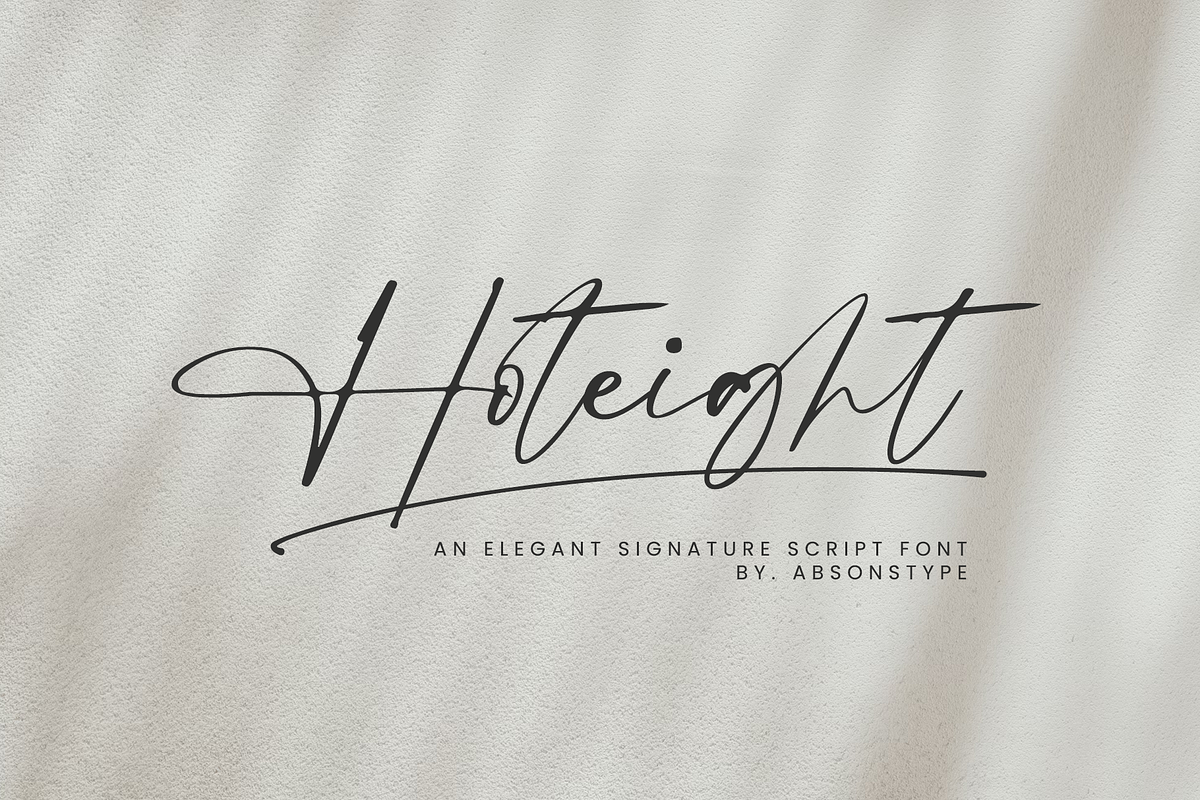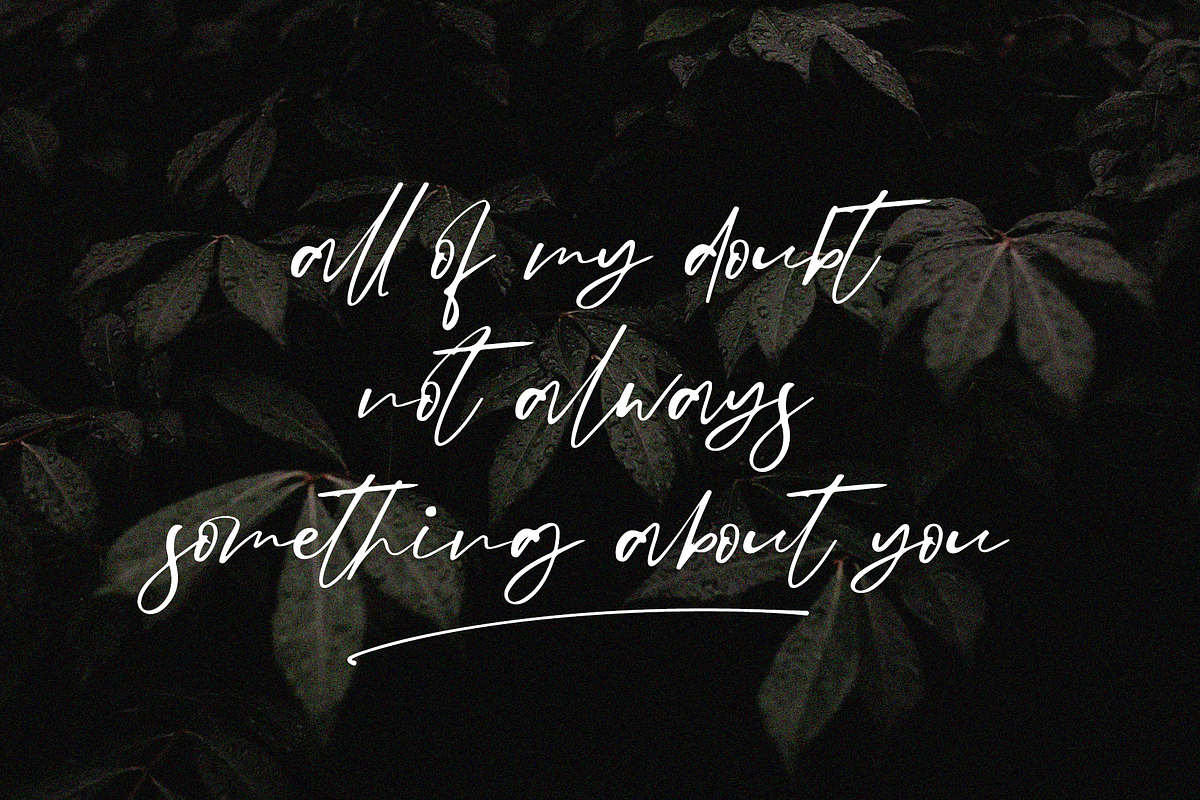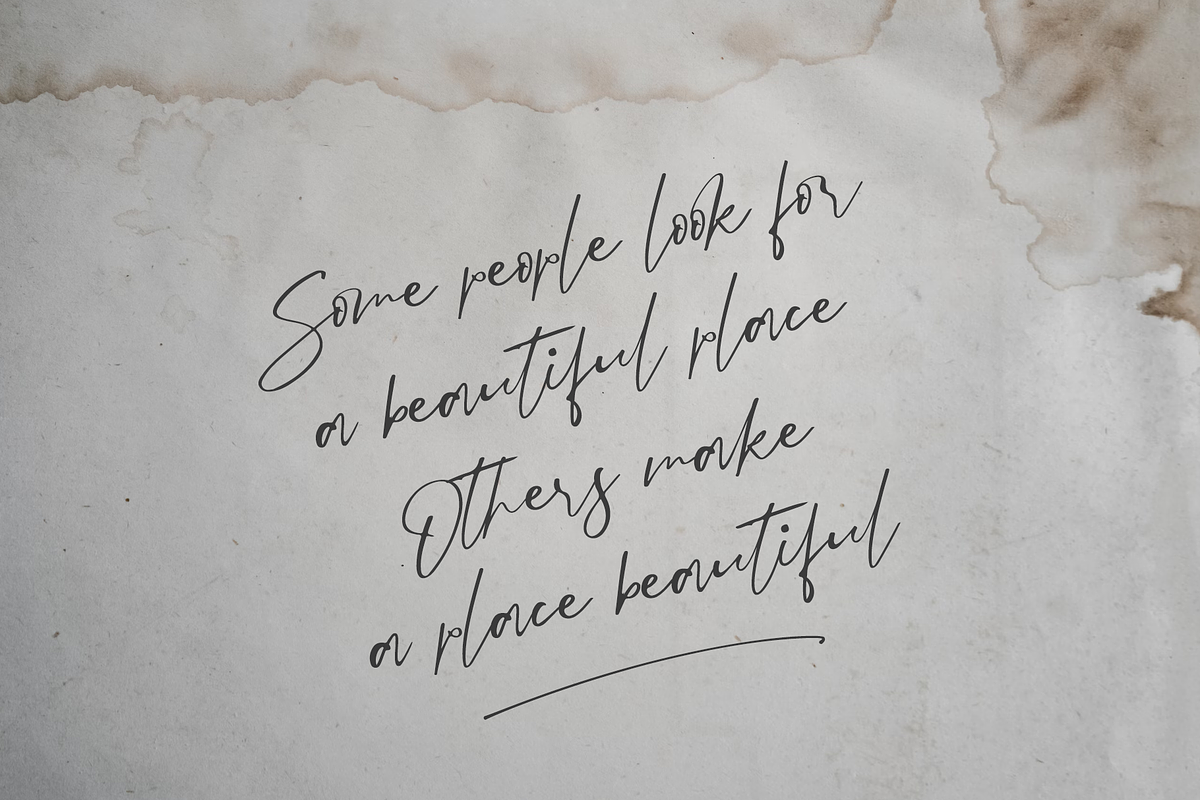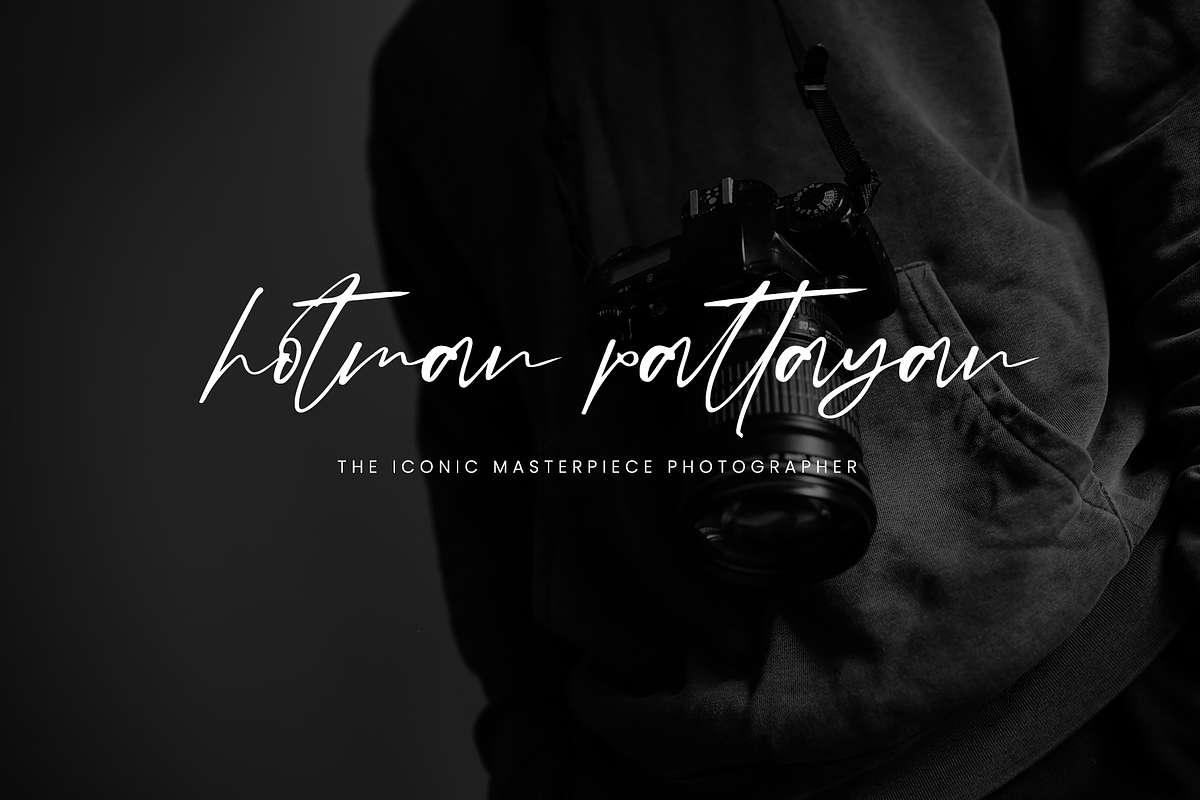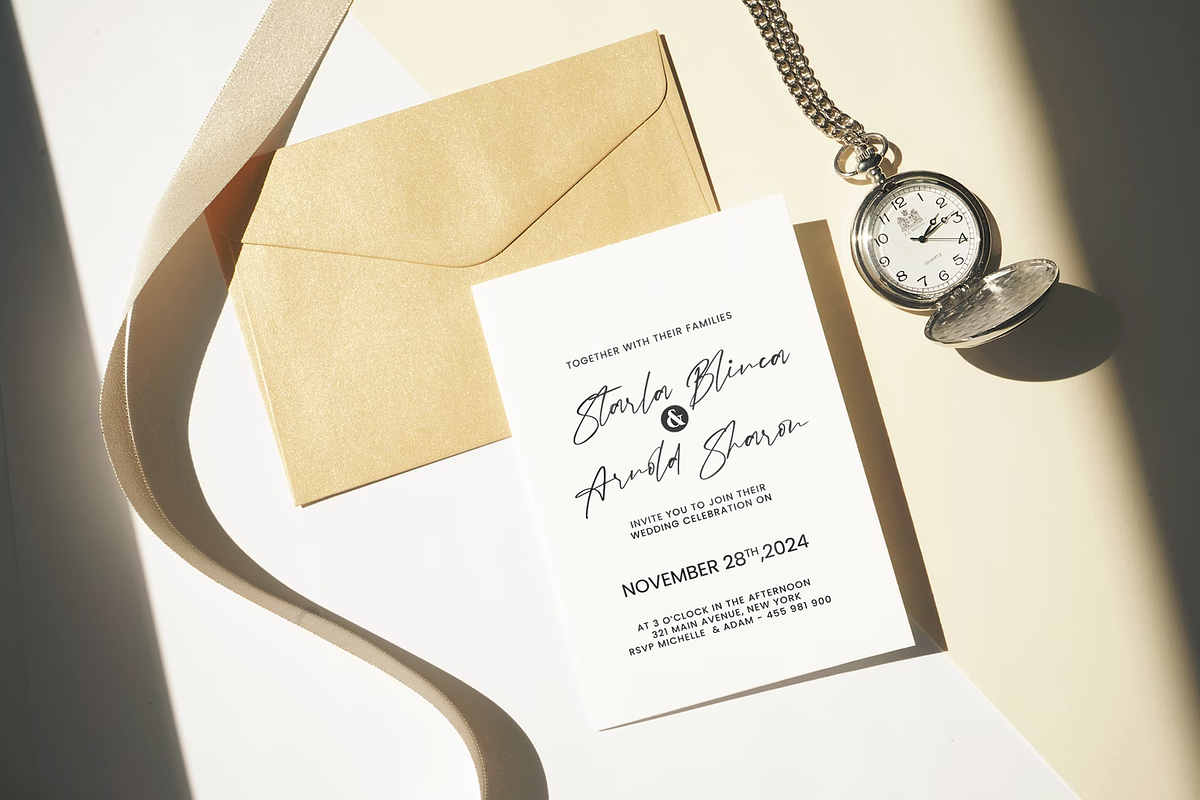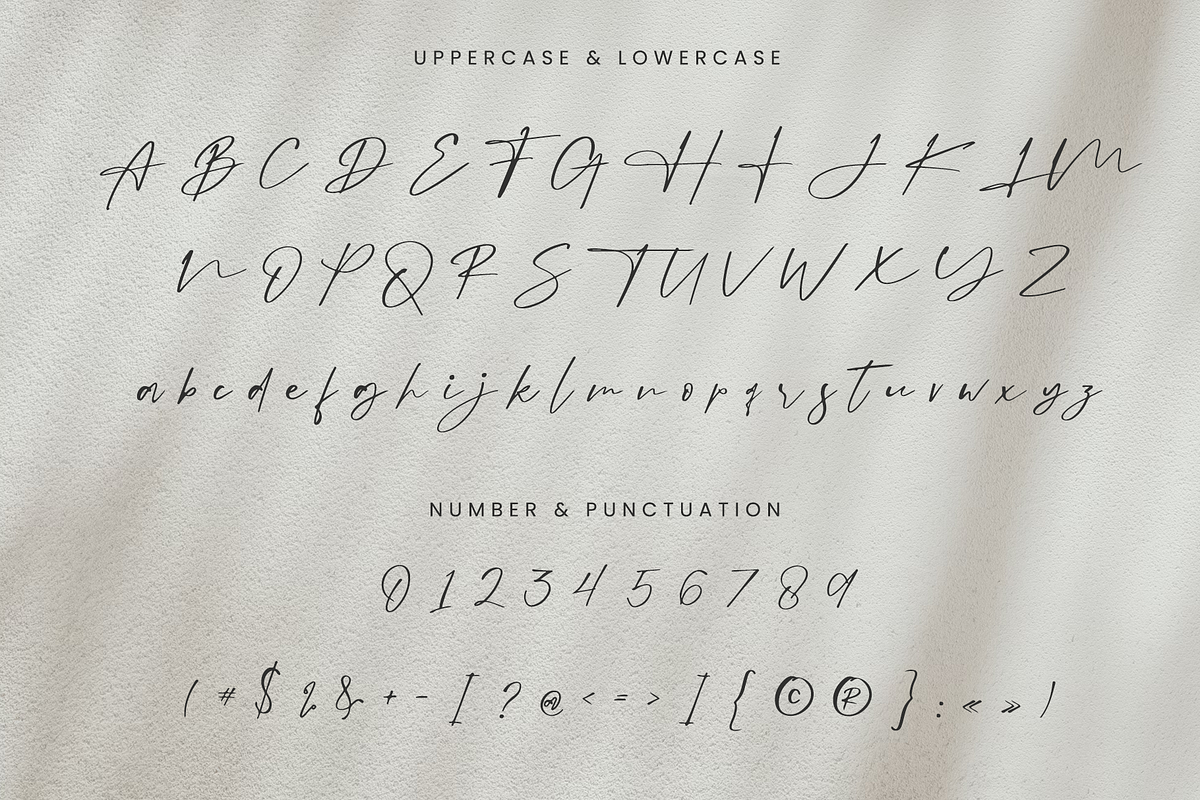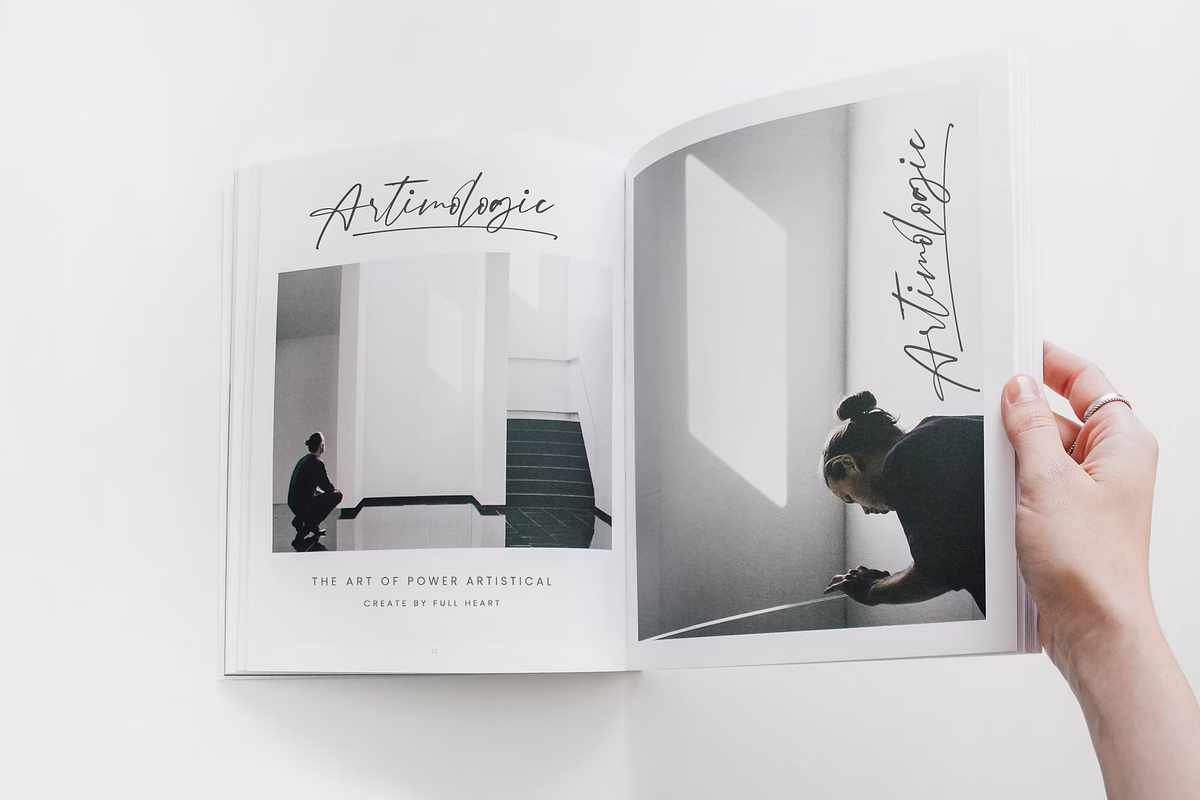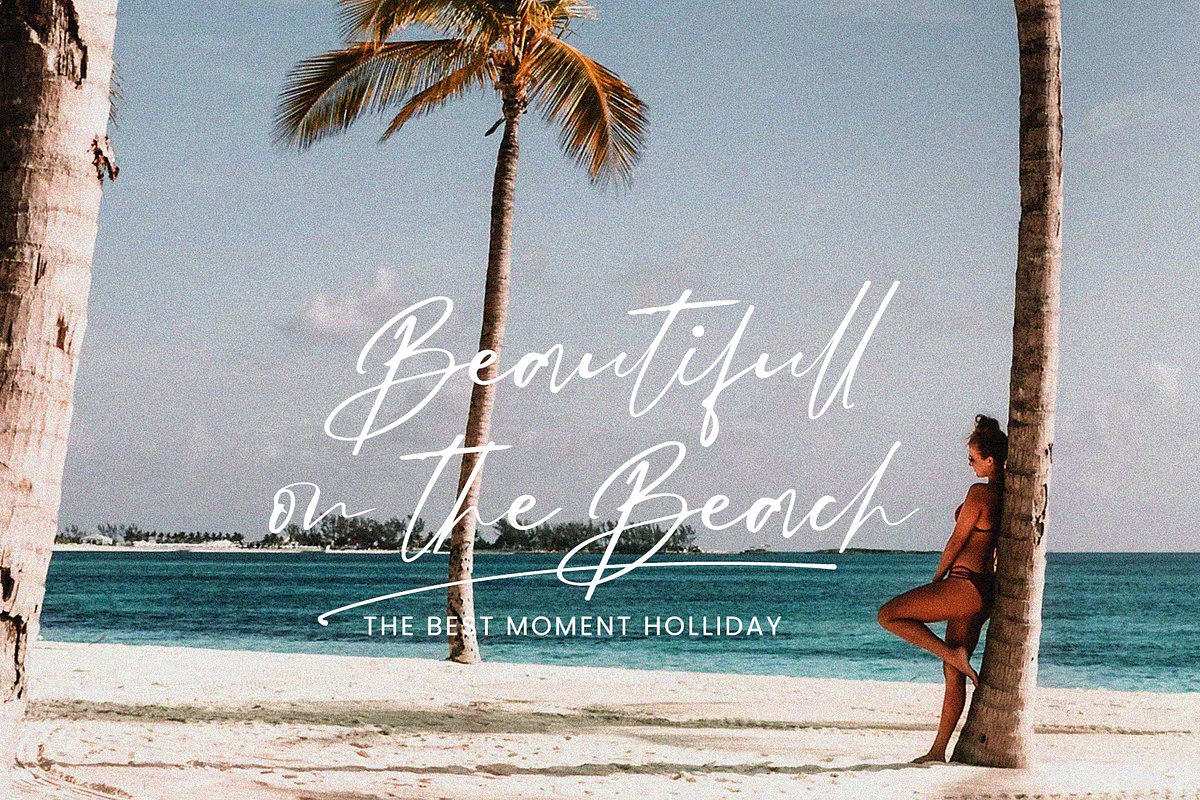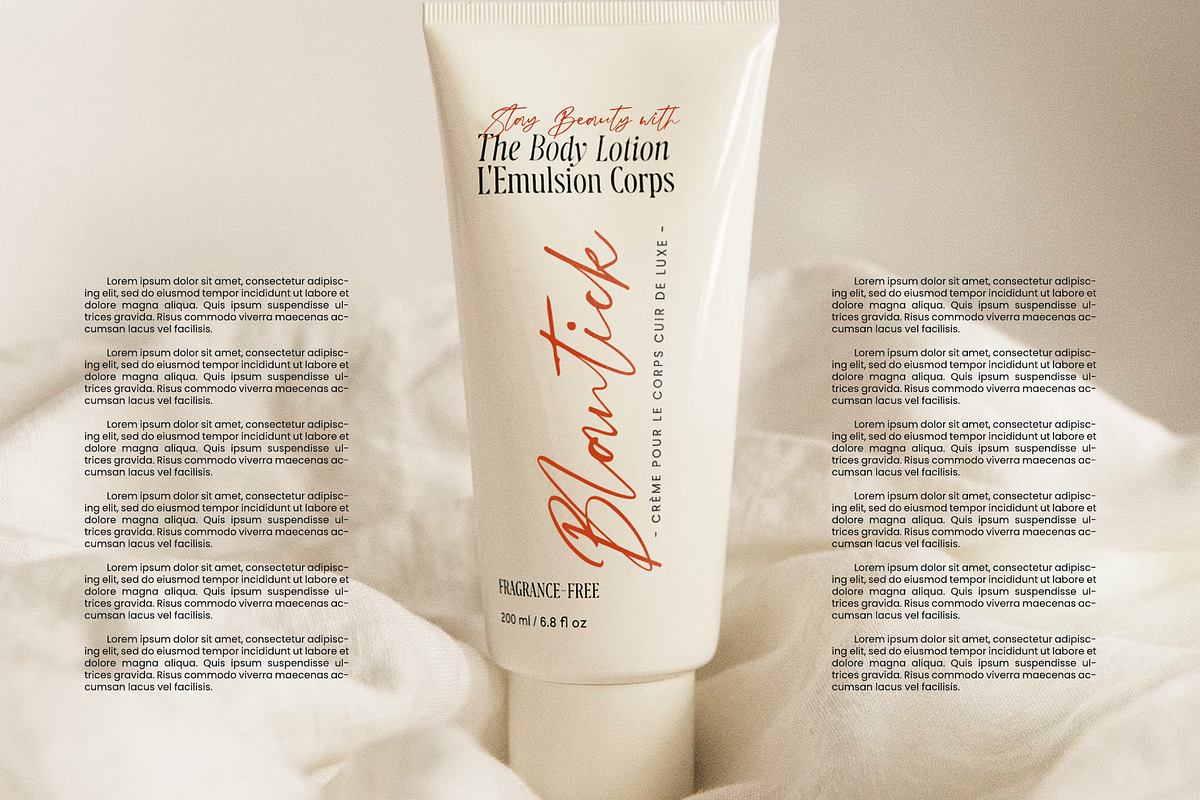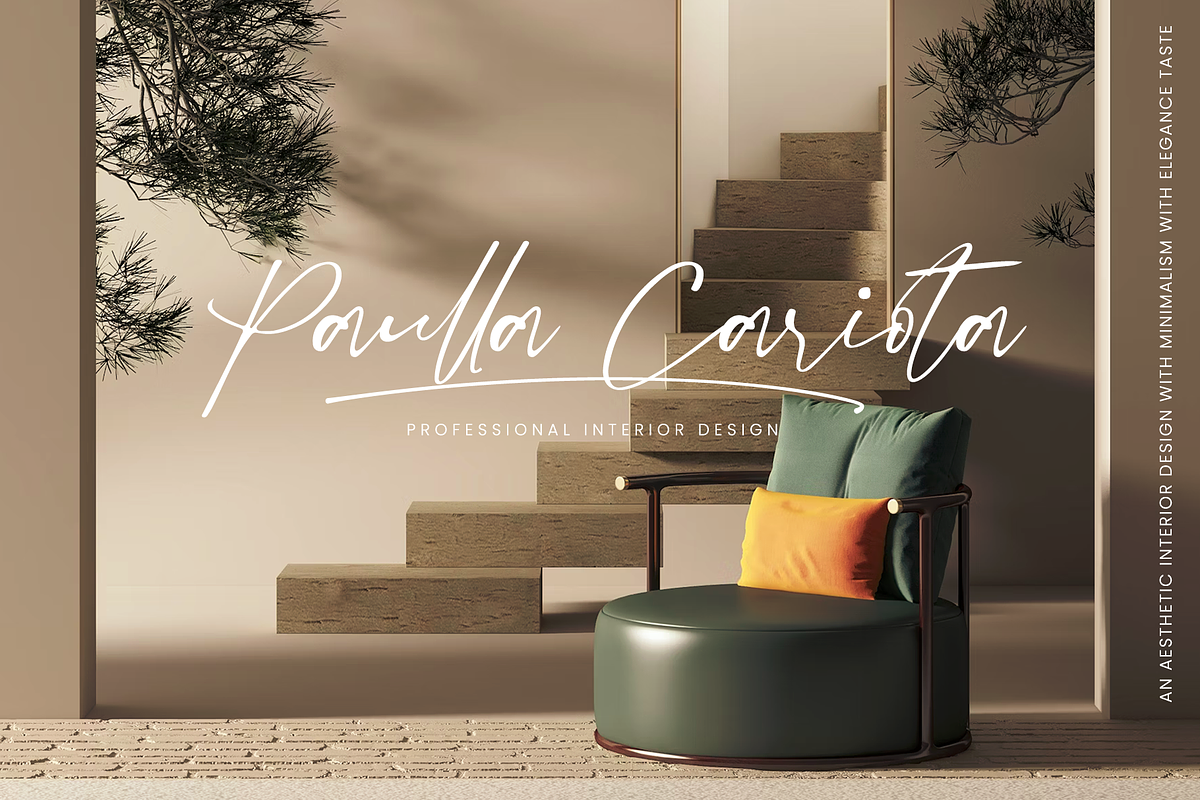
Hoteight - Absonstype
Hoteight is an elegant signature script font, wide all caps style of the sans and elegant modern script feel nice balanced. Provide with ligatures in script makes the design letter looks nice. Honestly it works perfectly for headlines, logos, posters, packaging, T-shirts, Branding and much more.
- All Caps of the Sans
- Script complete with ligatures
- Character set A-Z in Uppercase and Lowercase
- Accented Characters
- Multiple Languages Supported